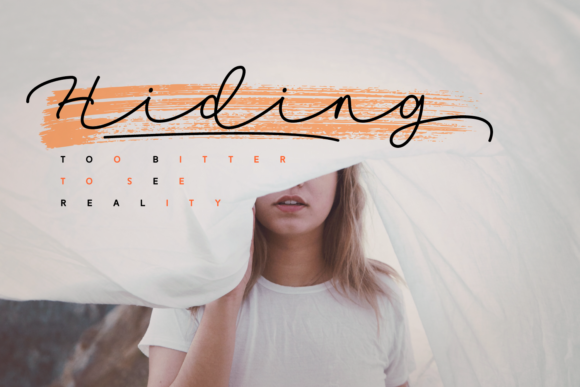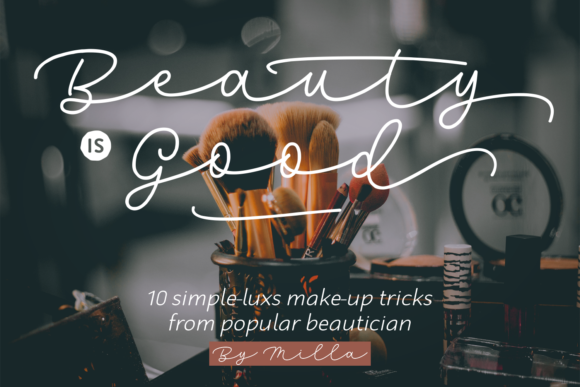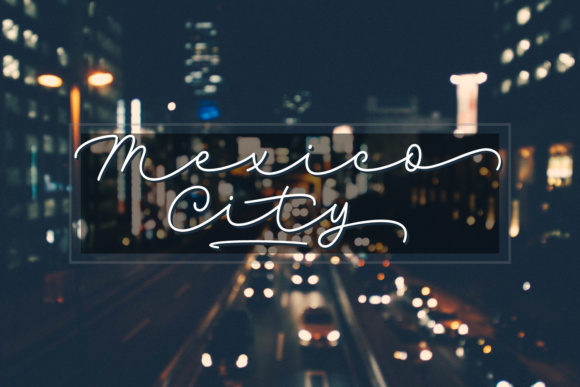
Dolica Kathy Font
About Dolica Kathy Font
Dolica Kathy is a sweet and simple handwritten font with incredible lettering. It’s the perfect font for adding an authentic vibe to any design idea!